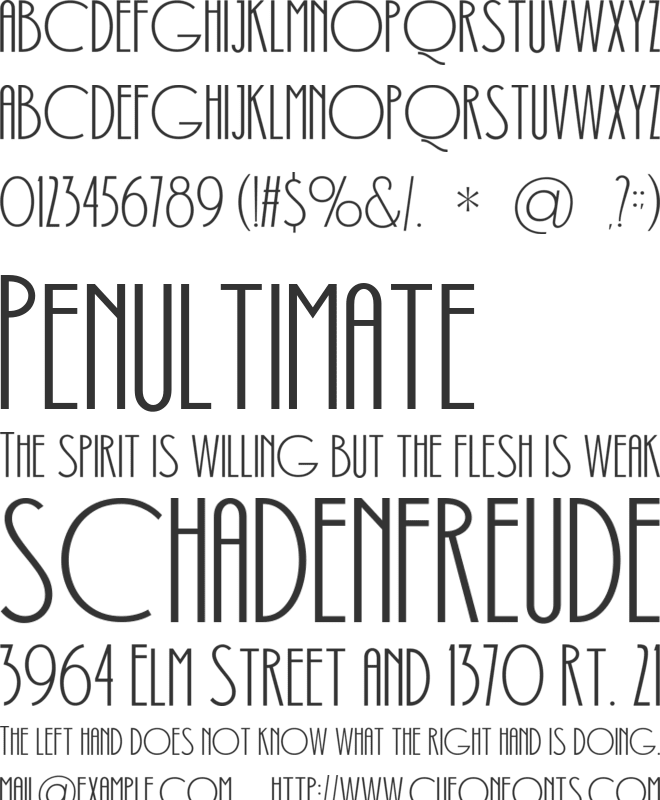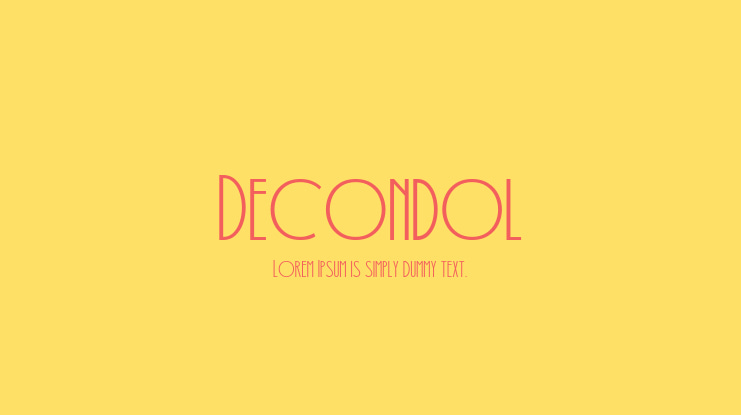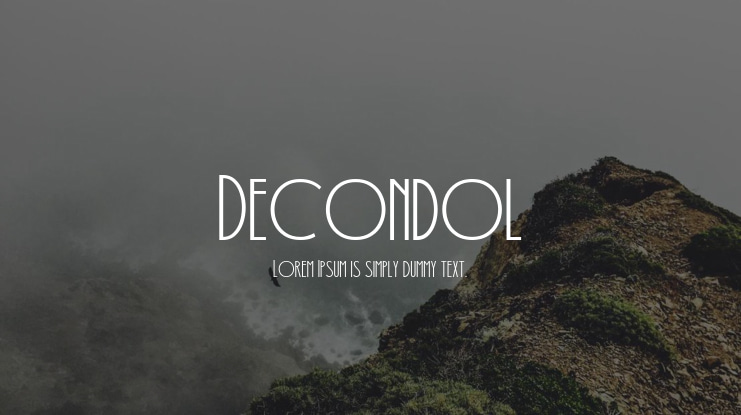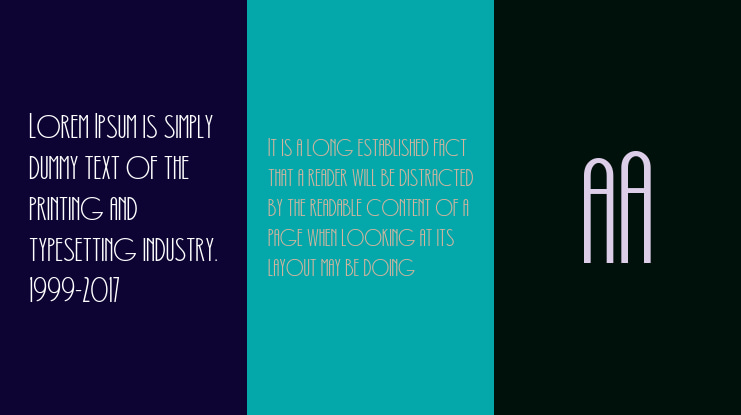
Decondol Font
Decondol Art Deco Typeface
Enhance your designs with Decondol, a sophisticated Art Deco typeface that artfully combines modern elegance with timeless style. Drawing inspiration from the geometric symmetry and bold aesthetics of the Art Deco era, this typeface updates contemporary design with its refined details and adaptable character set.